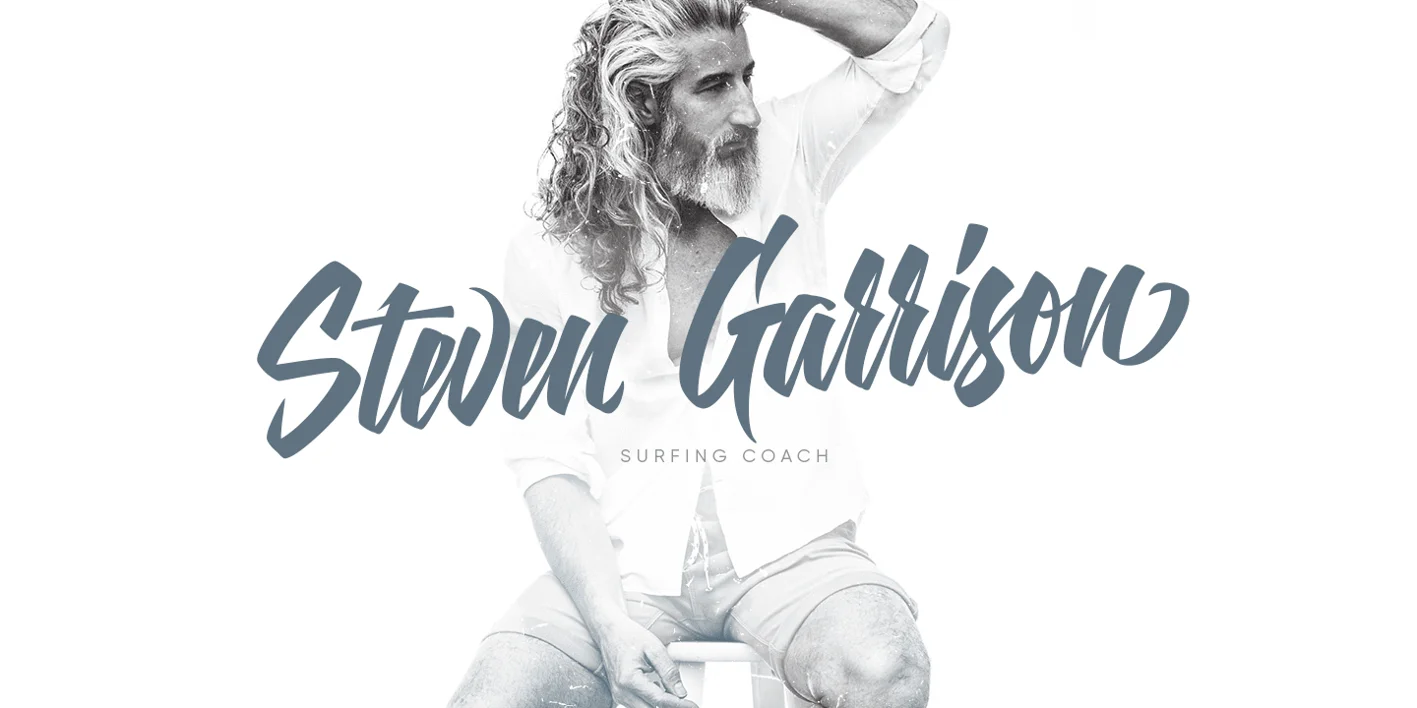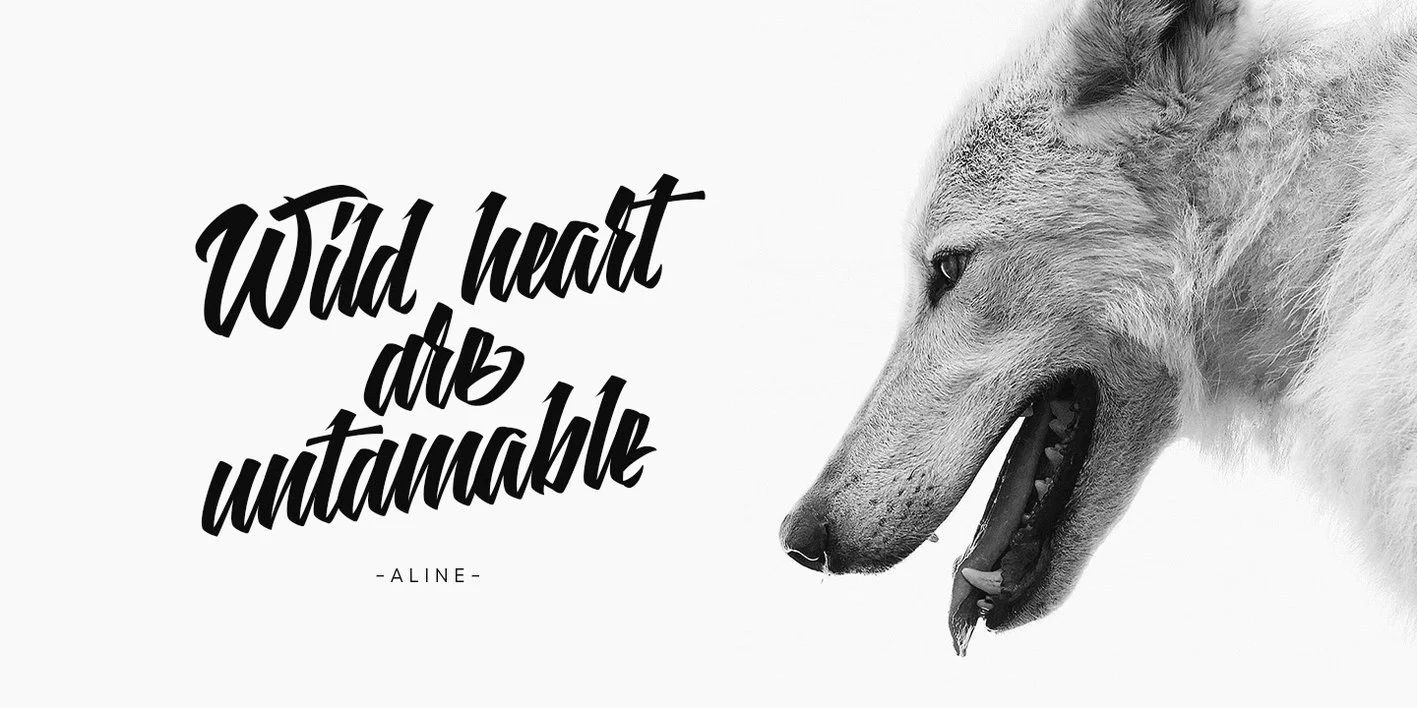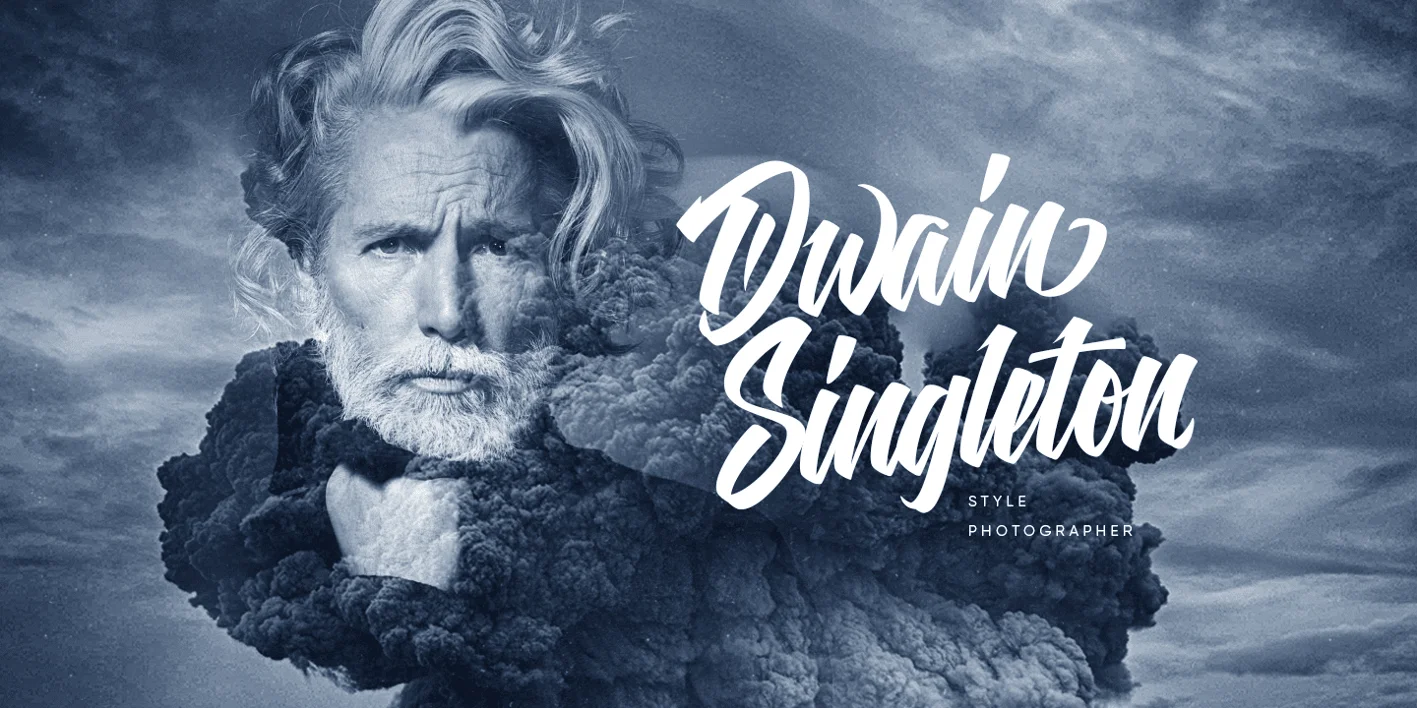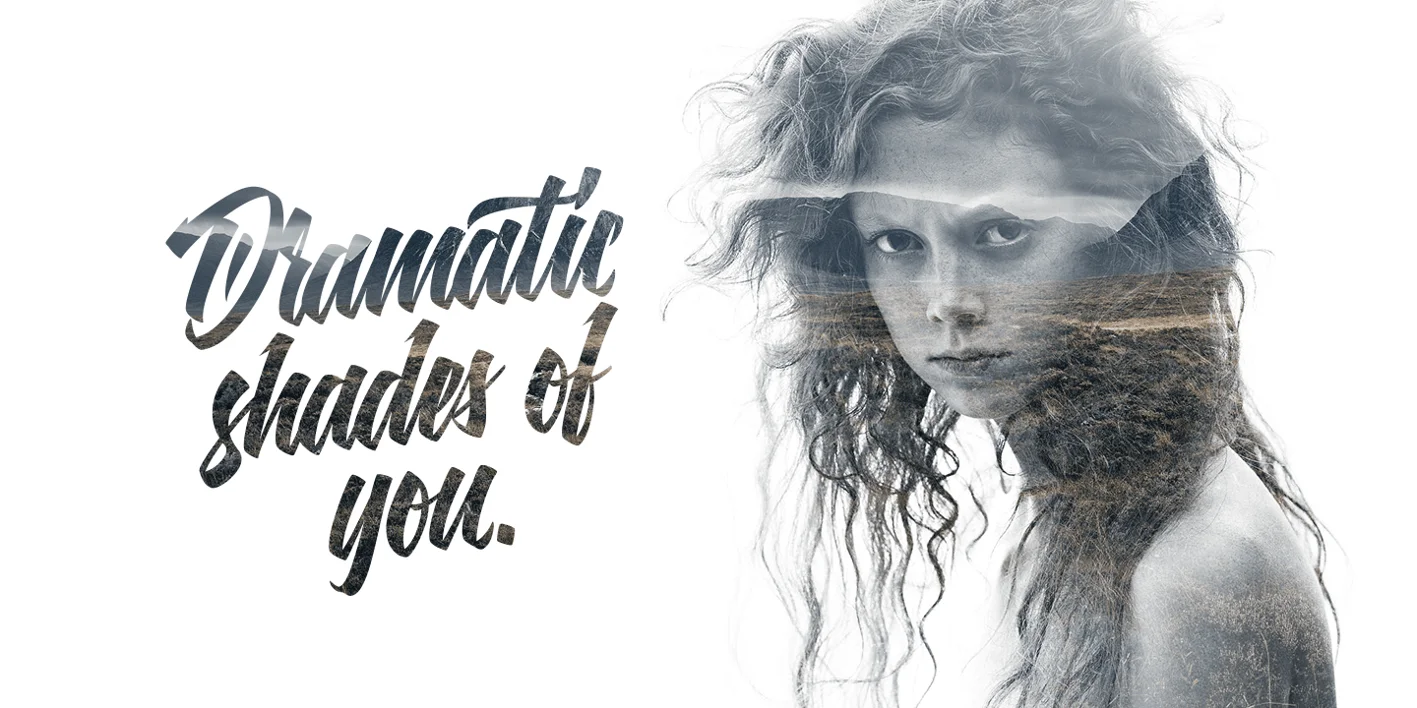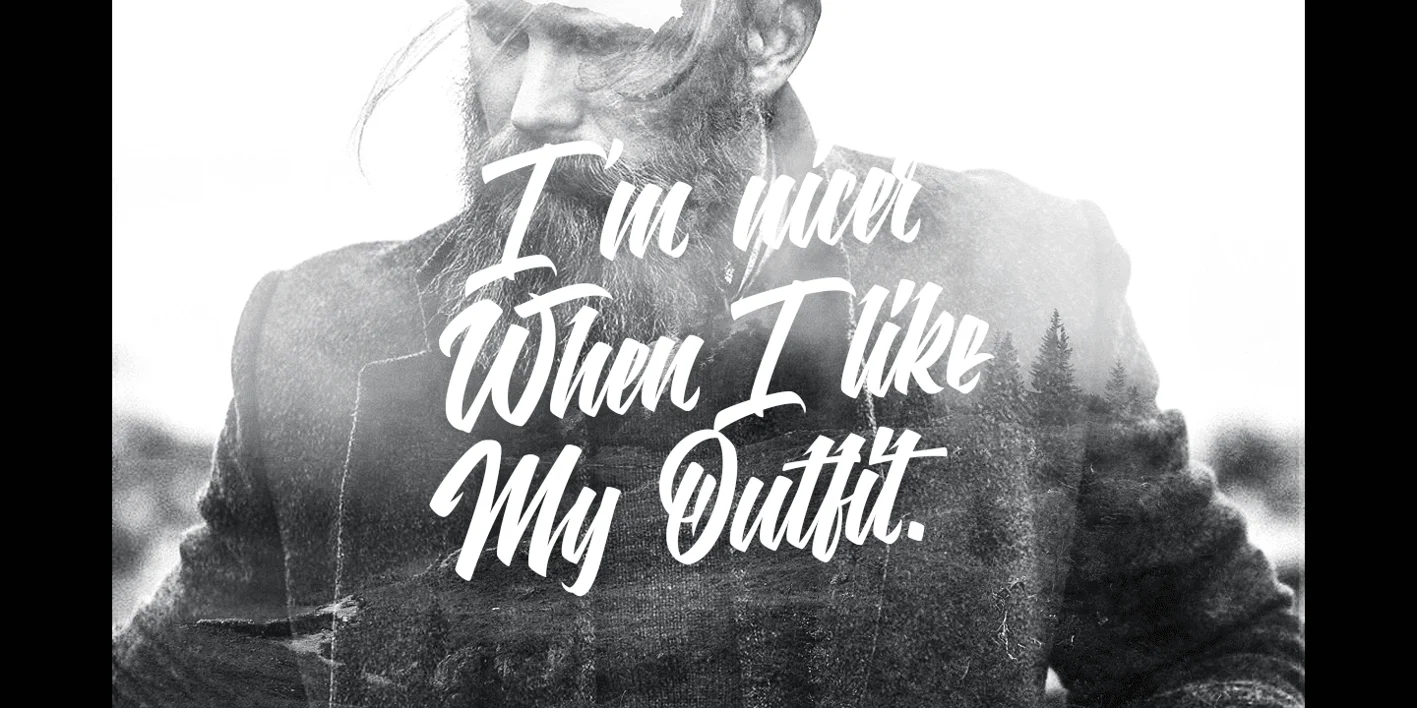
Hidden Soul Font
Typography shapes perception at a subconscious level. Hidden Soul leverages versatility across print and screen contexts to make every composition feel considered. The typeface brings a versatile sensibility to a broad range of creative disciplines, with visual harmony and precise spacing that holds up whether the work is print-first or screen-first.
In practice, Hidden Soul proves particularly effective for social media graphics, packaging design, brand identity systems, annual reports, editorial layouts. Designers reaching for it find that the type decisions feel resolved rather than laboured — a useful quality when client timelines are tight.
The range of applications extends to poster creation, logo design, environmental graphics, product labels. That breadth is deliberate: the proportions and spacing were stress-tested across a wide range of mock briefs before the typeface was finalised.
The consistent rhythm of Hidden Soul across a full paragraph creates the kind of even grey value that makes extended reading comfortable, a detail that matters more in long-form content than its subtlety might suggest.
Graphic designers working on identity systems find Hidden Soul a reliable choice for projects that demand both personality and restraint. The design avoids the self-conscious quirkiness that dates quickly, settling instead for considered distinctiveness that holds up over time.